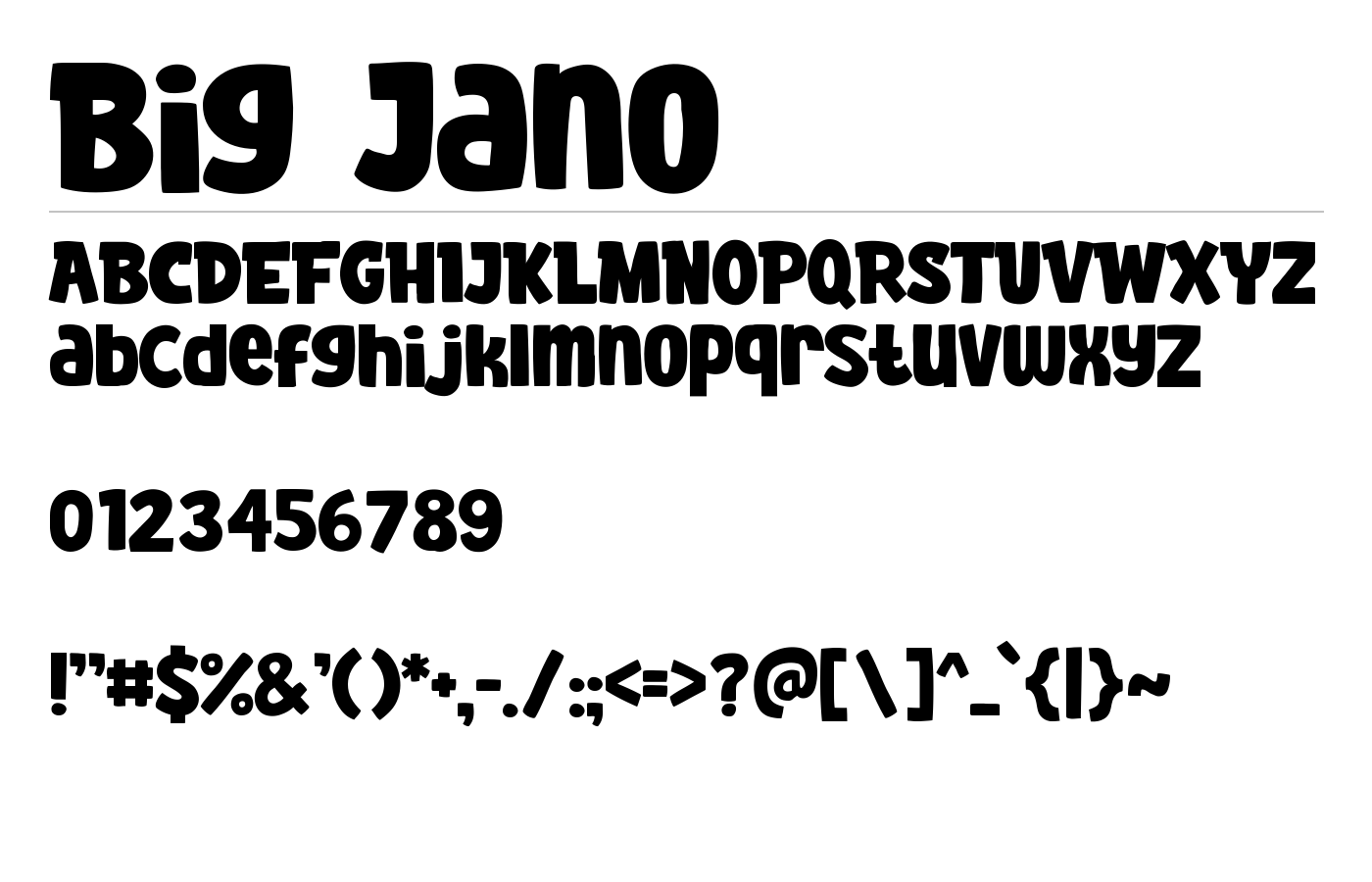
Big Jano is a bold, playful sans serif font with a chunky, slightly uneven structure that gives it a fun and informal feel. Its rounded edges and quirky letterforms make it perfect for creative projects, children’s books, posters, and branding that want to convey friendliness and approachability. This font works best in headlines and display uses where personality and impact are key.
Big Jano Font
About Big Jano Font
| Designer | Sahirul Puguh |